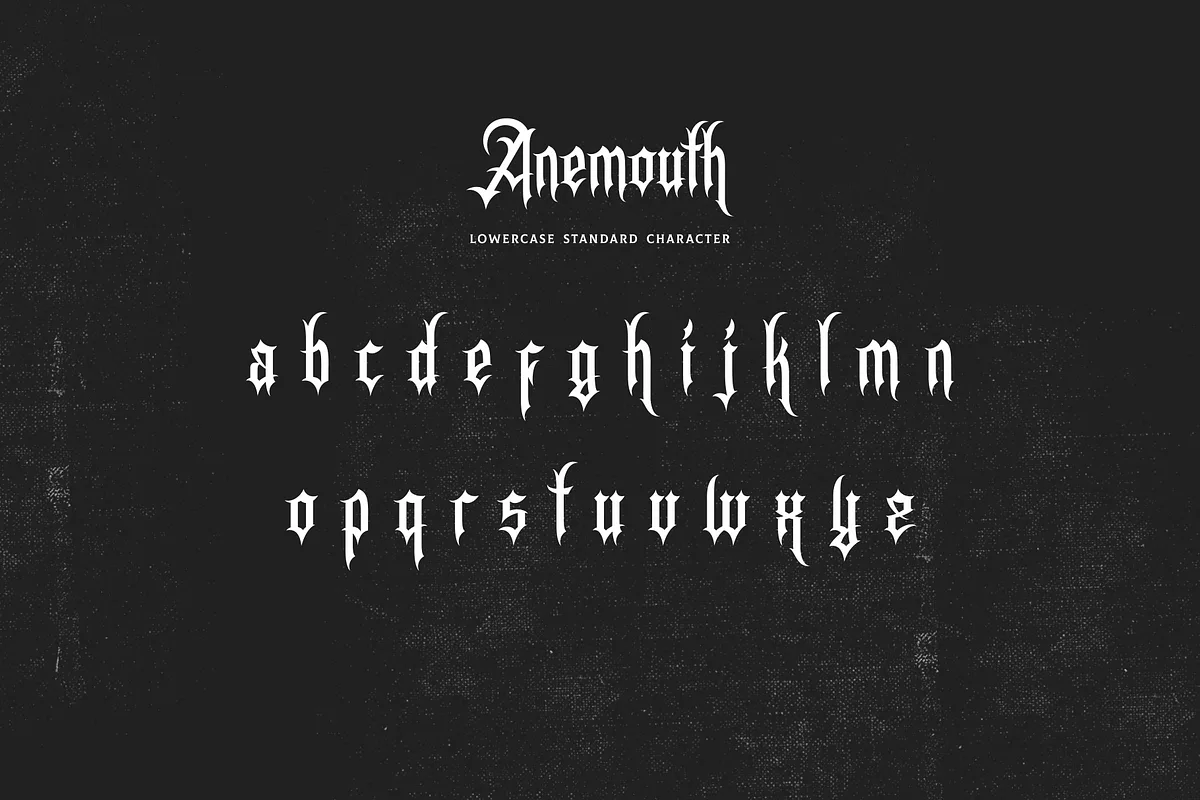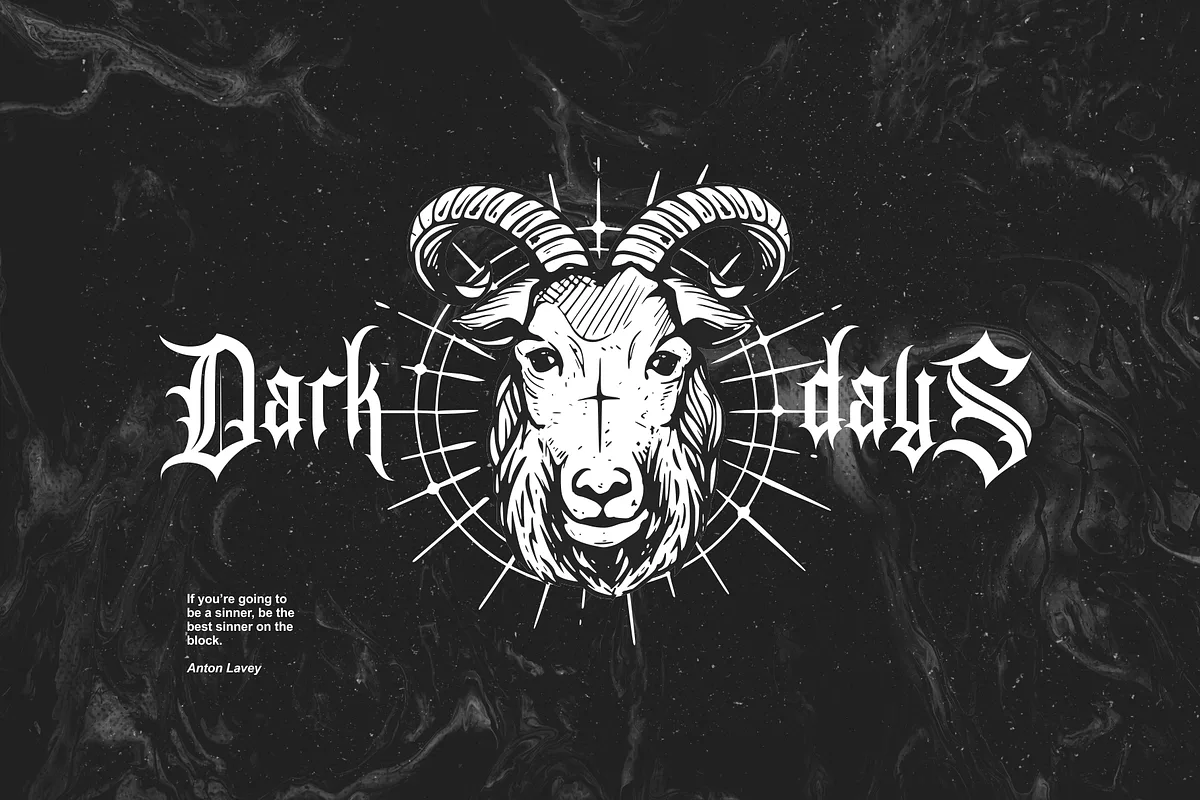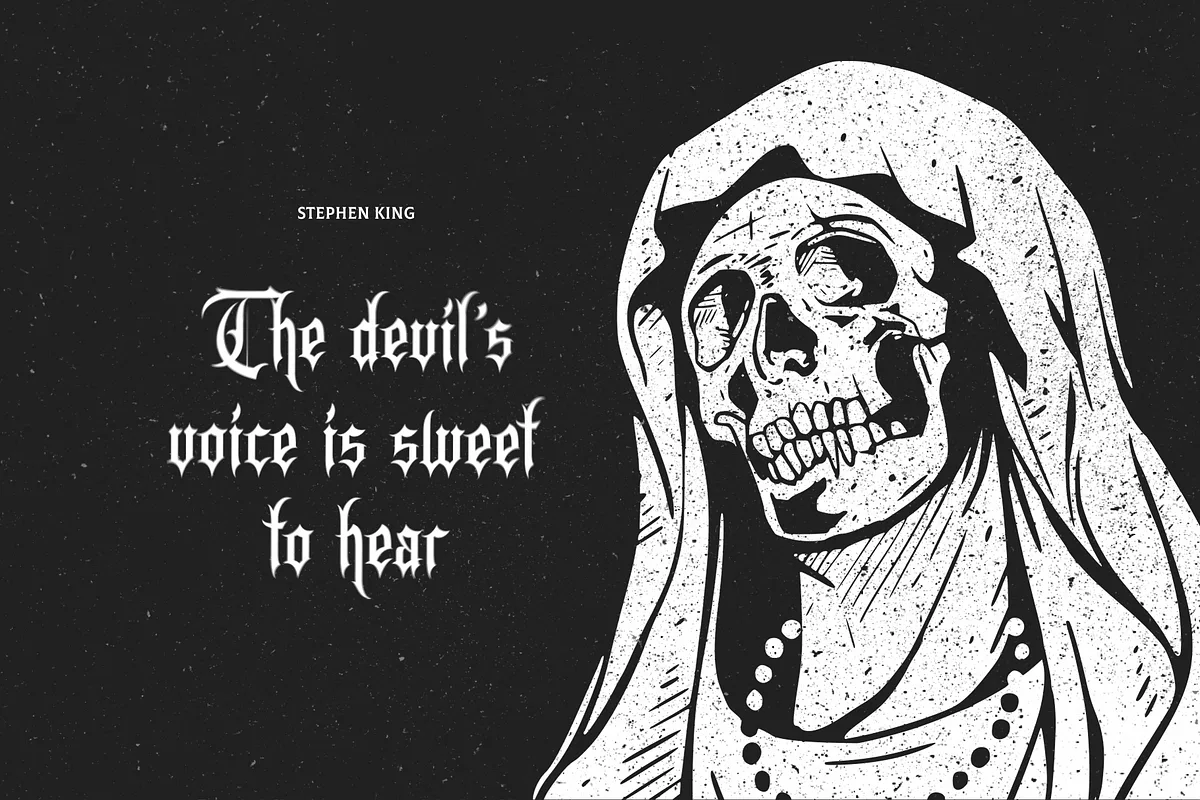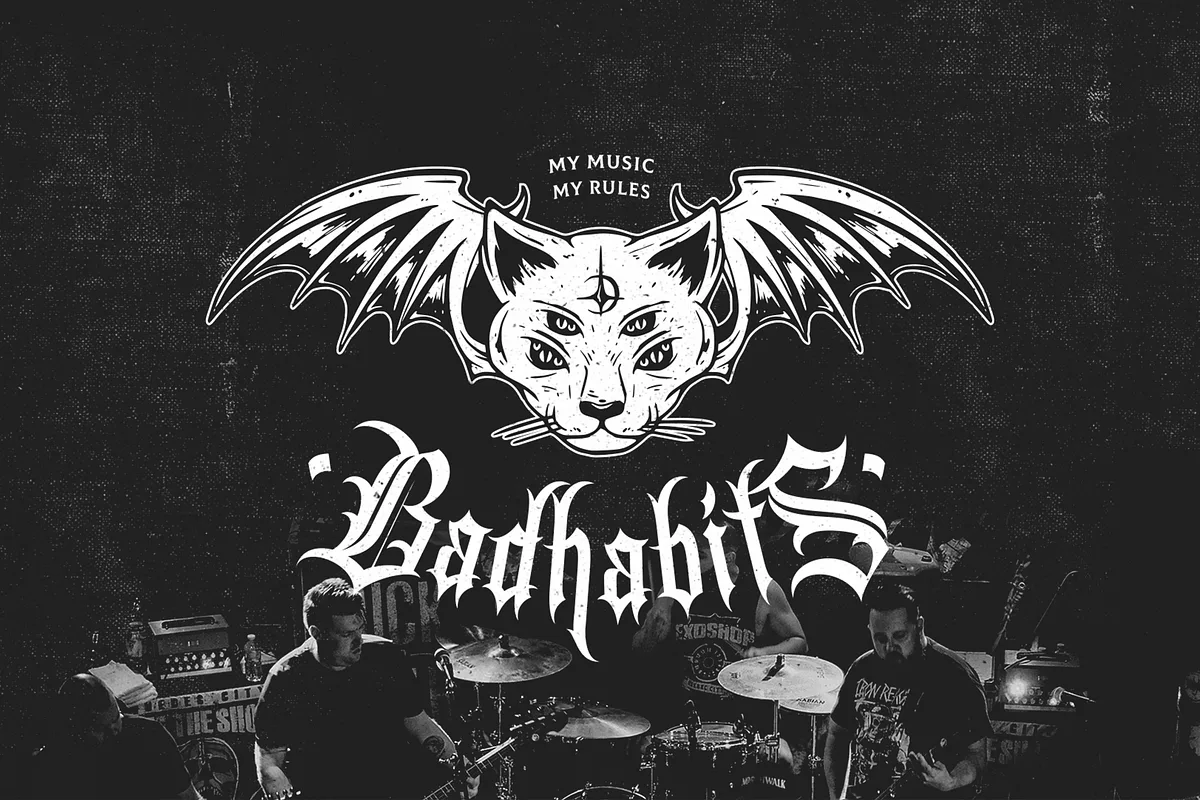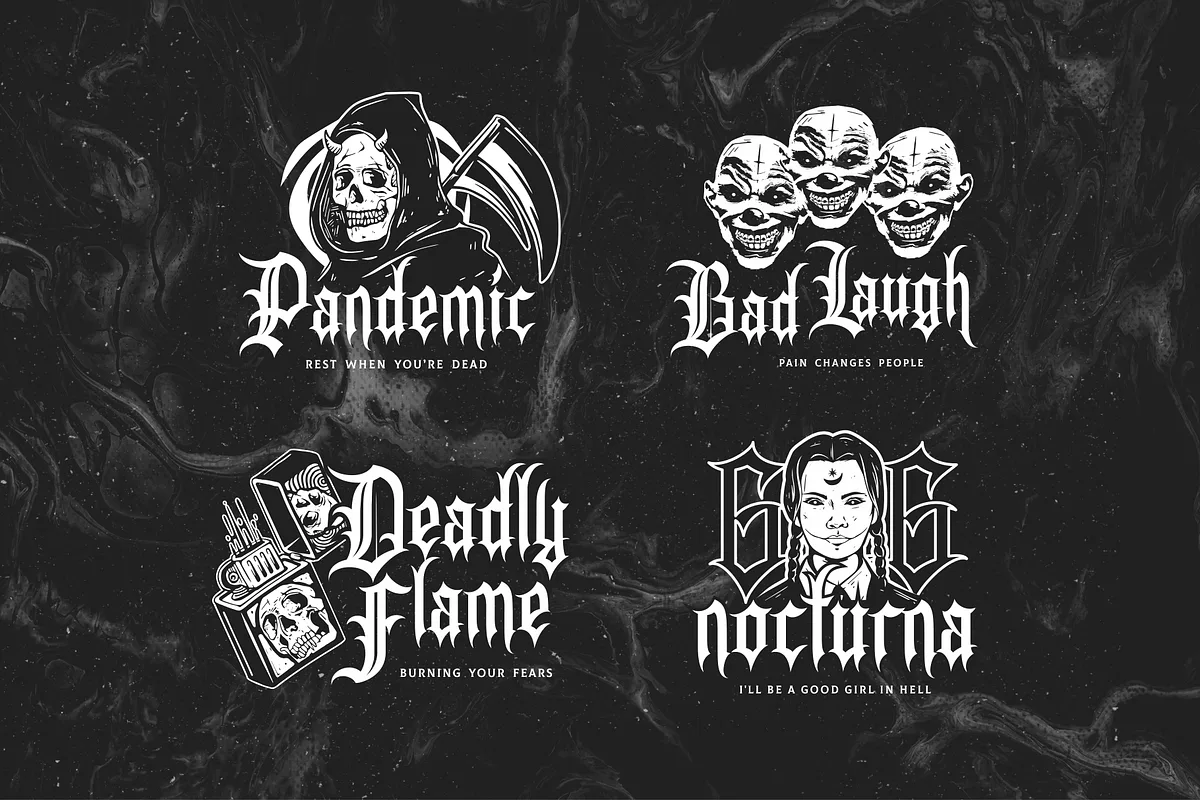
Anemouth is blackletter font that blends a little bit more “darker” and is slightly tangent to the “devil” impression. So this font is a classic body but with a soul that can adjust to the modern world.
This font will be suitable for band names/logos, album covers, posters etc. Besides that, it will also be suitable for merchandise such as t-shirts, bandanas, band posters, etc.